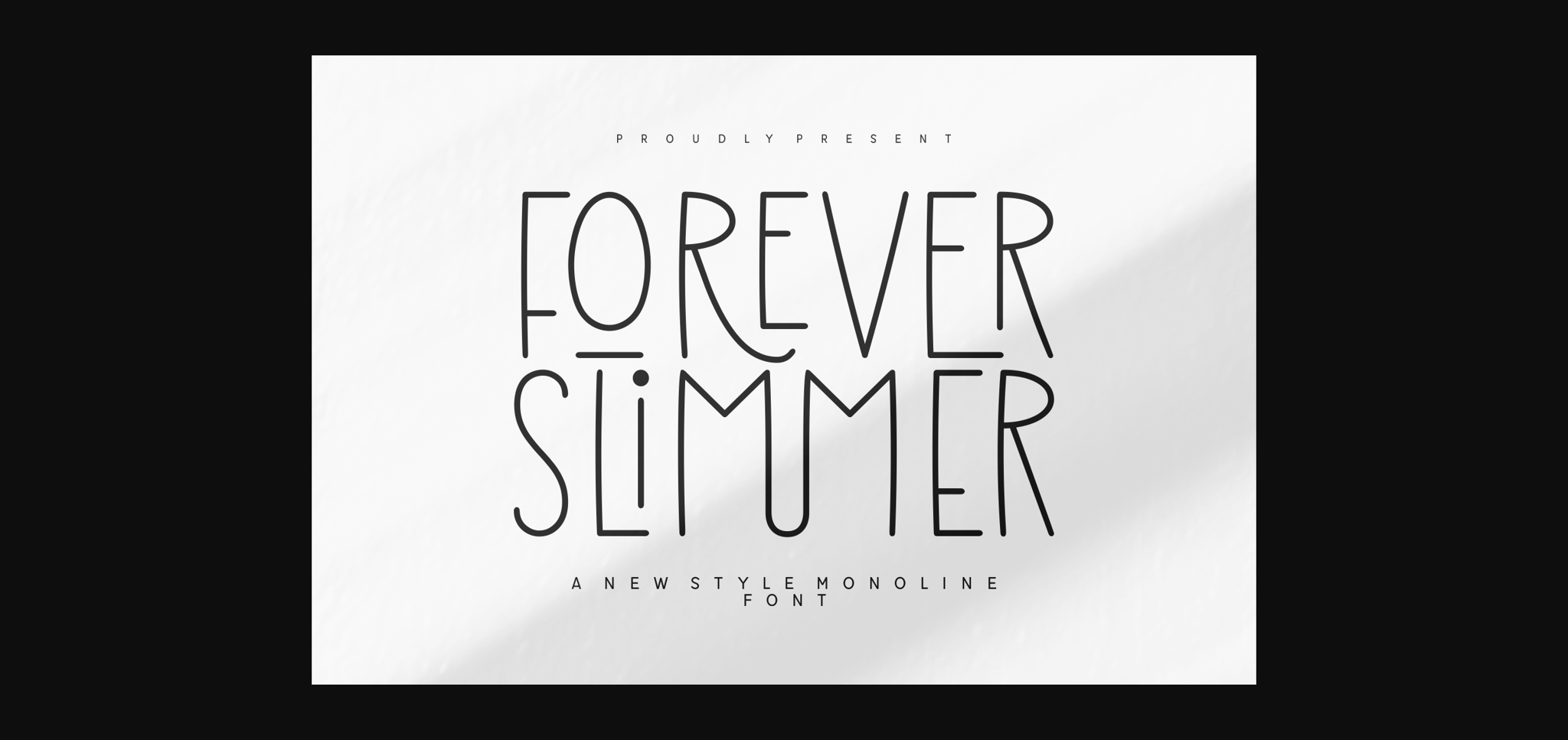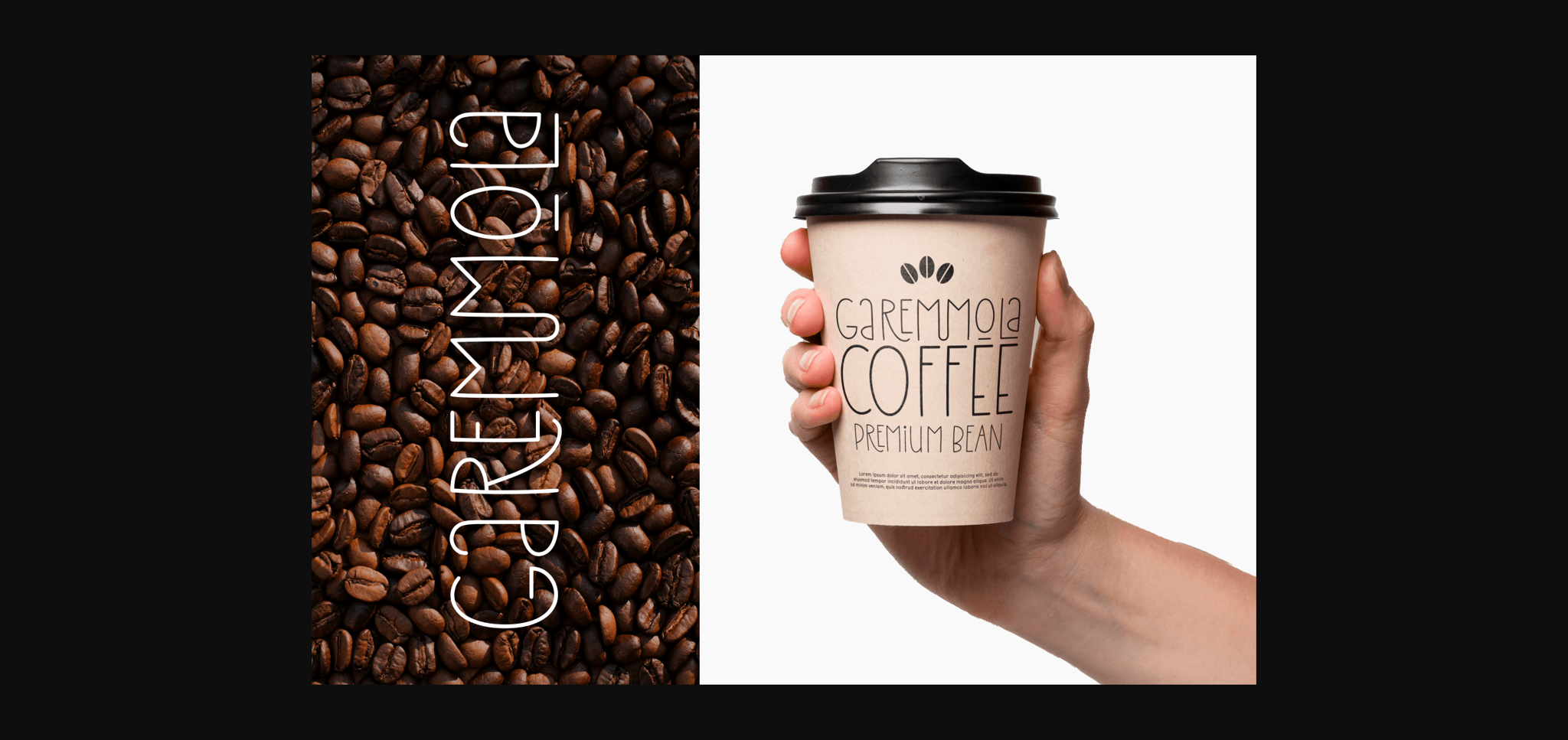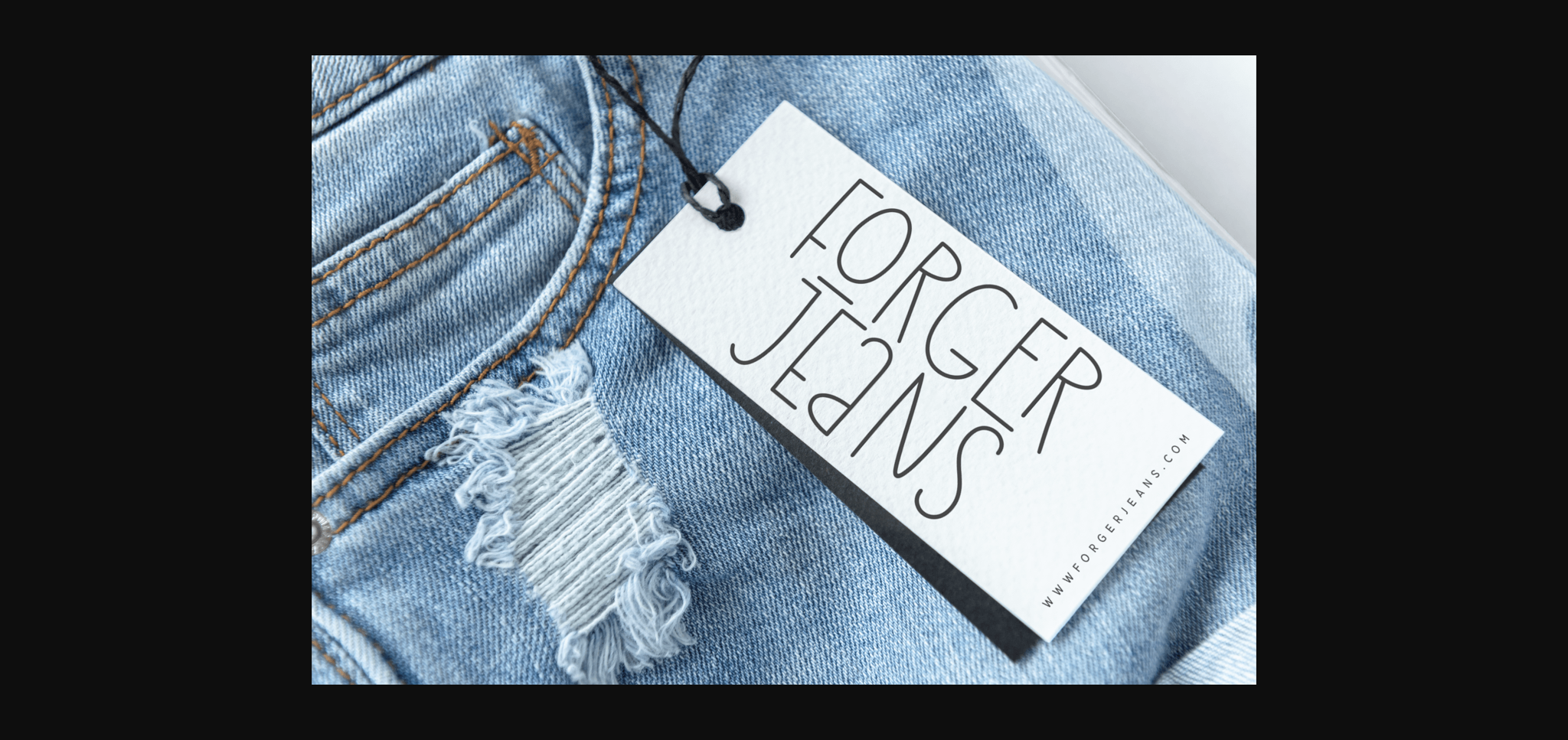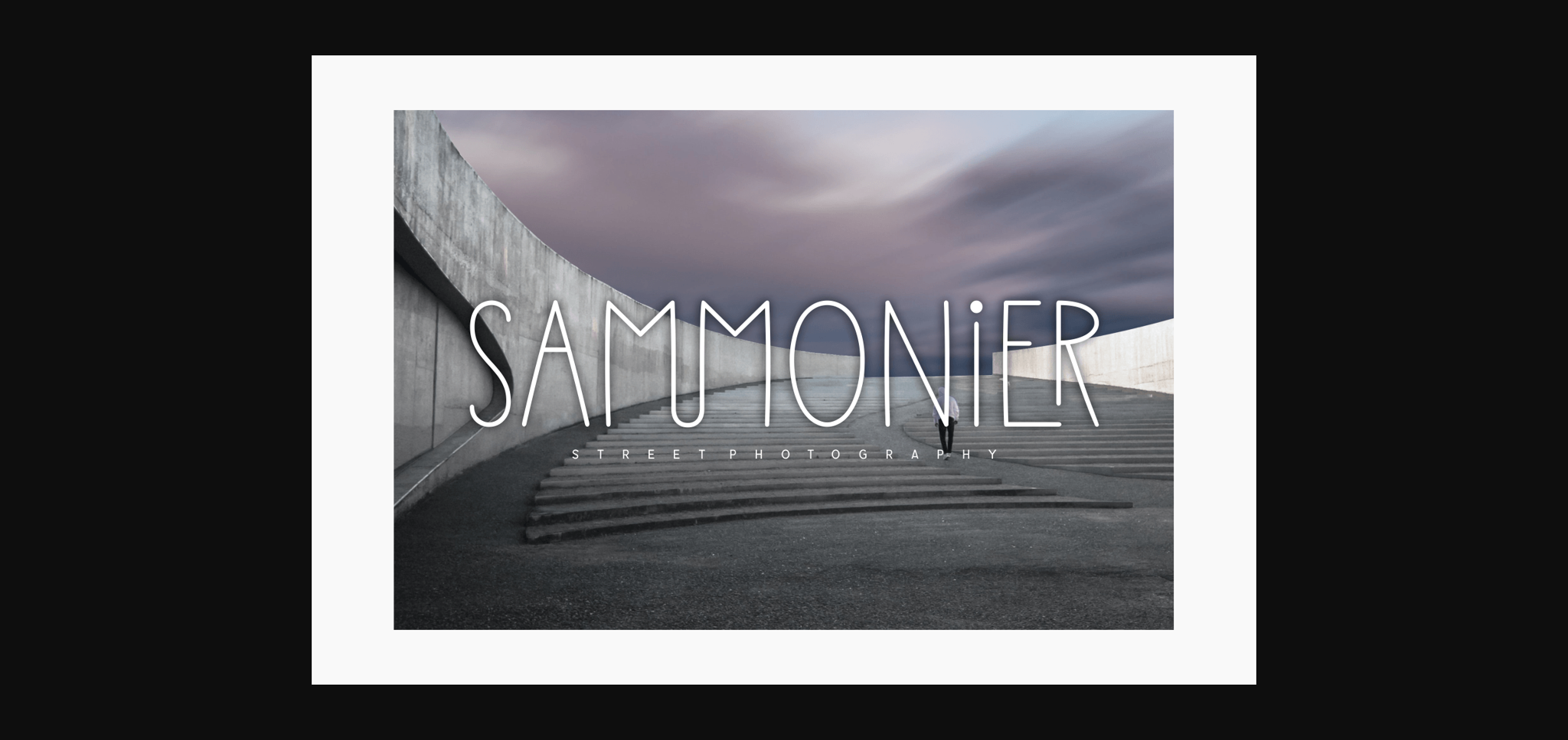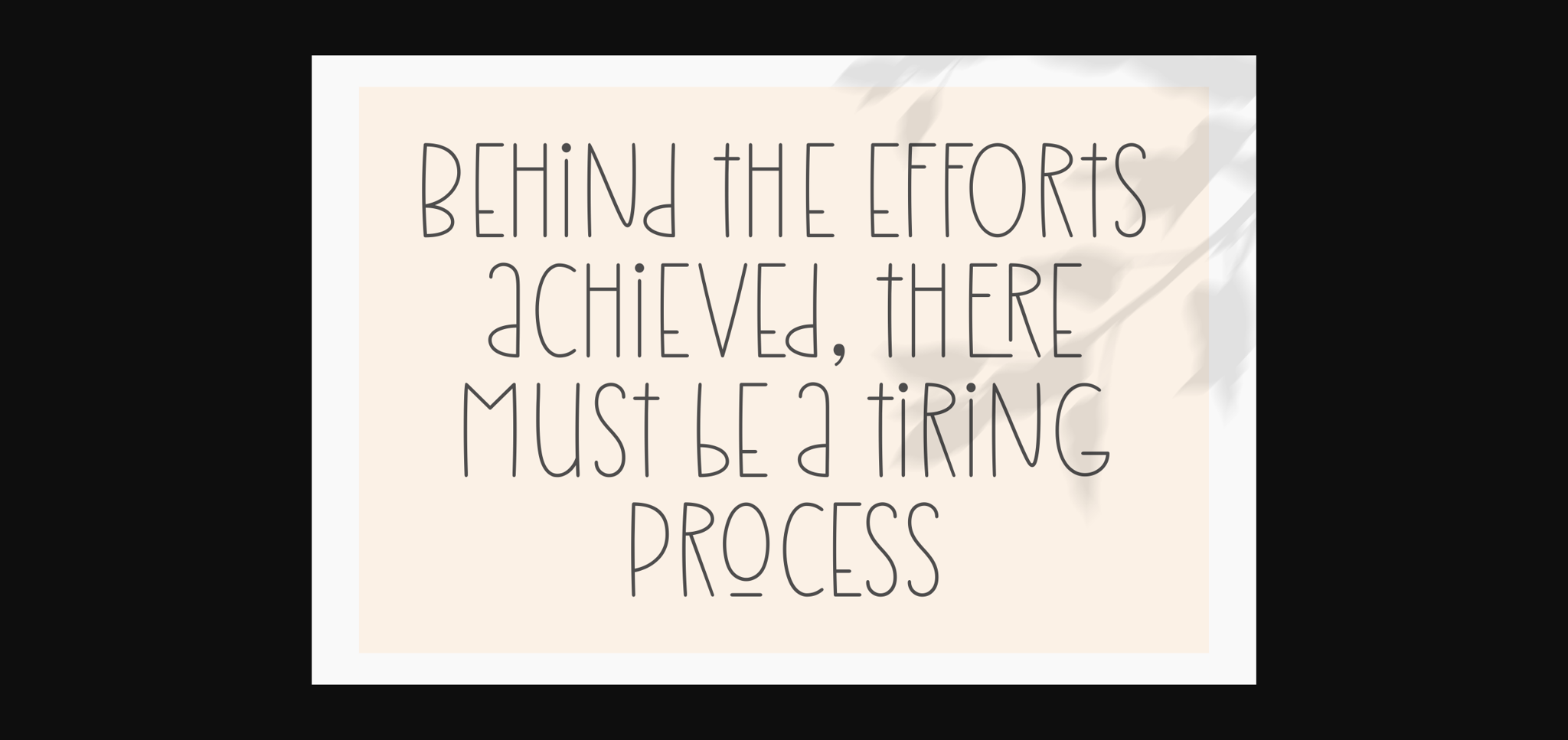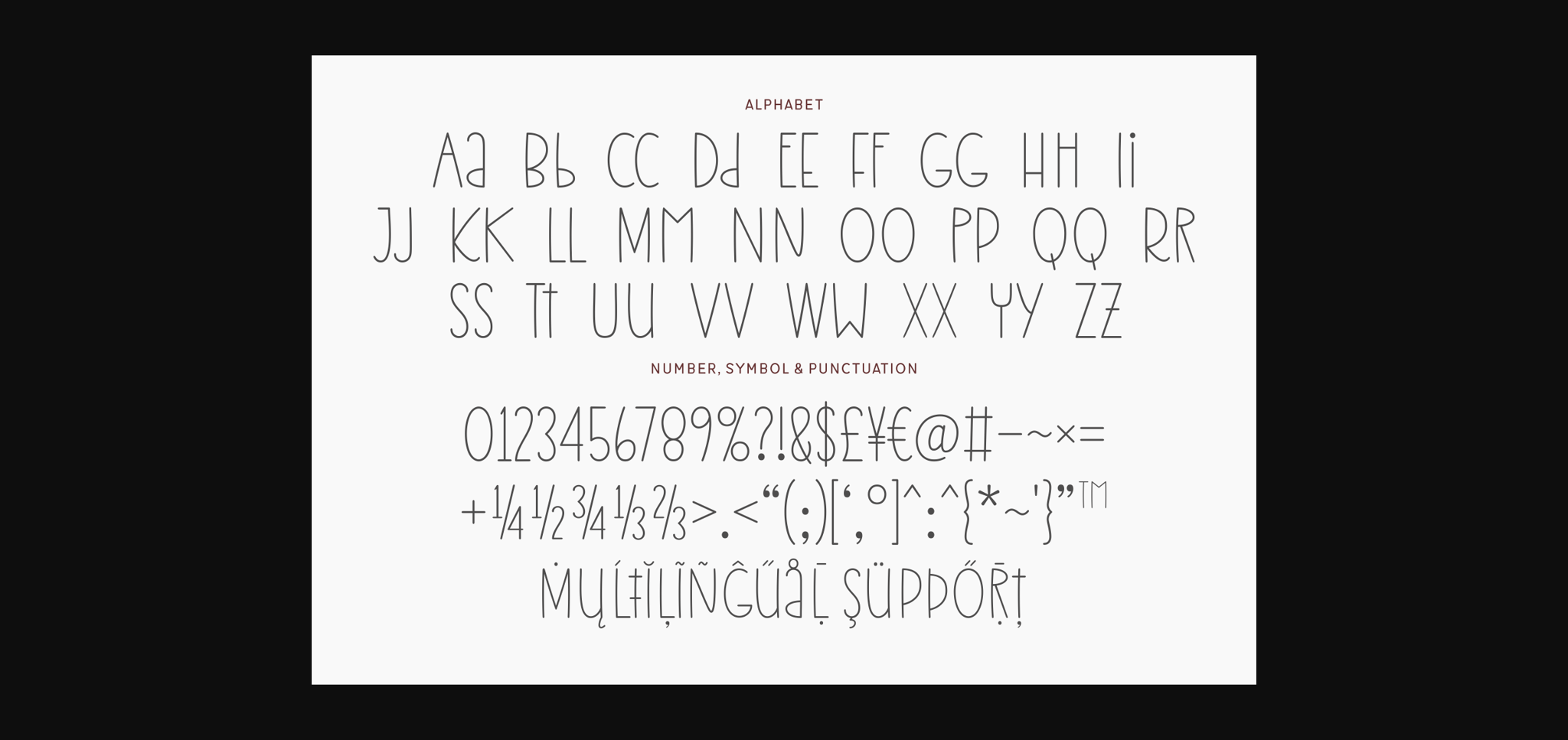
About Forever Slimmer Font
Forever Slimmer is a thin and modern sans serif font. This monoline typeface will help you create stylish typography designs that you will love! It looks perfect on cards, labels, logos, fabric prints, websites, and many more.